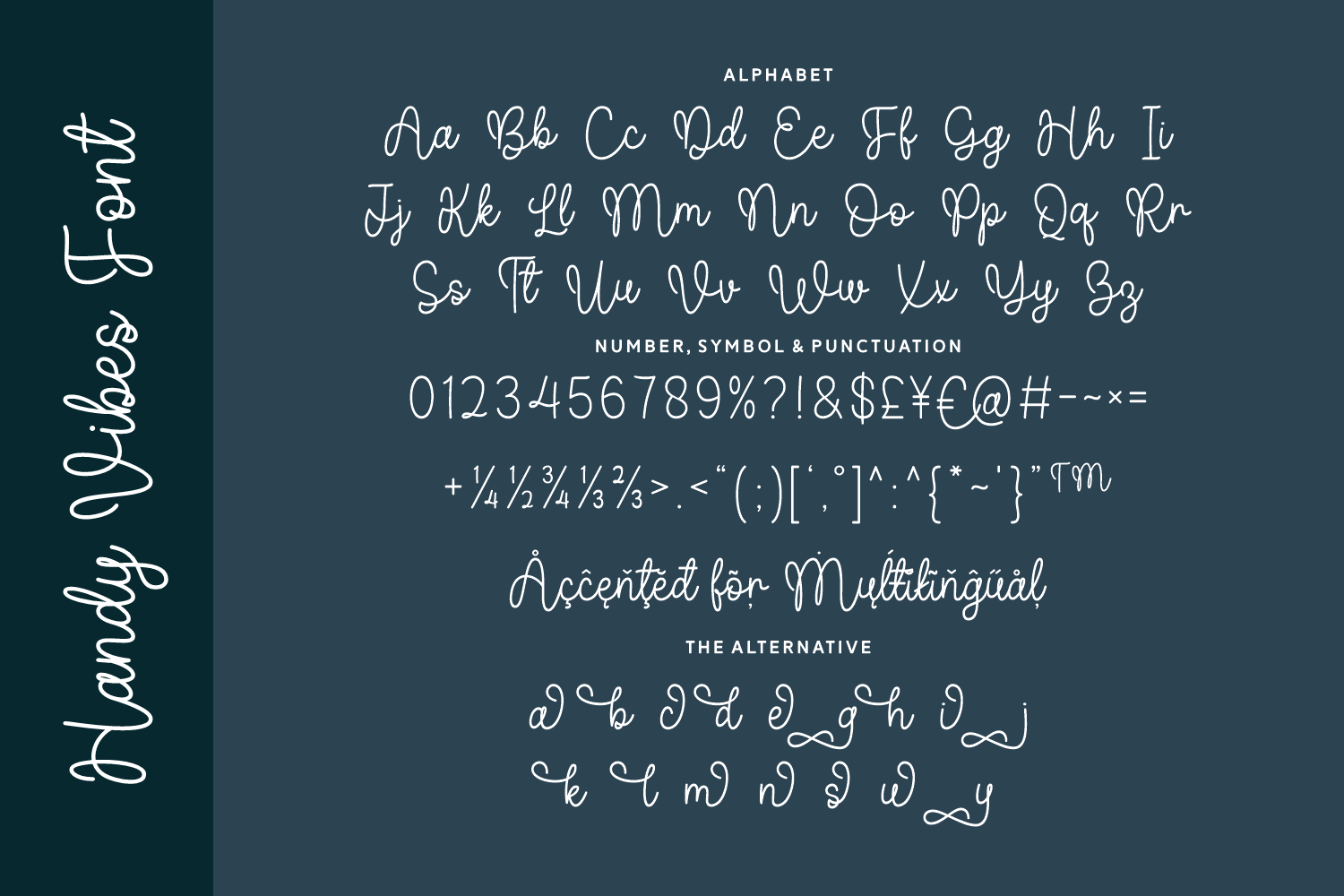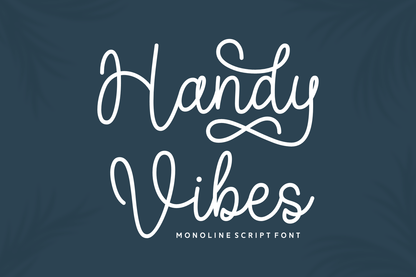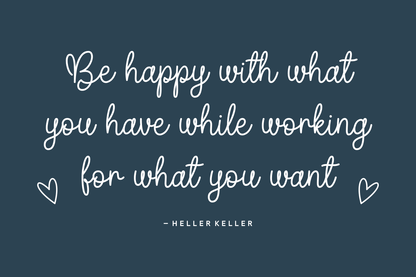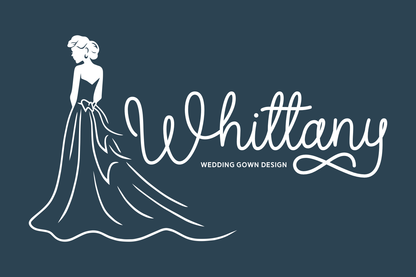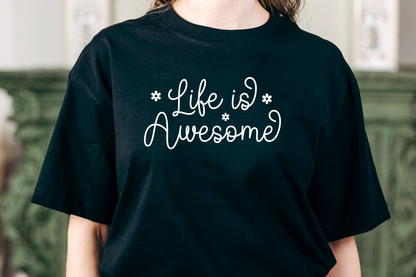
Handy Vibes is a cheerful monoline script font with an easygoing, handwritten charm. Its clean strokes and playful curves make it perfect for quotes, branding, greeting cards, and product packaging. With heartwarming ligatures and a friendly flow, this font radiates positivity and a handmade personality.